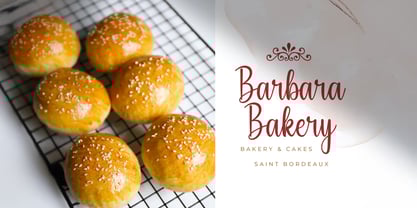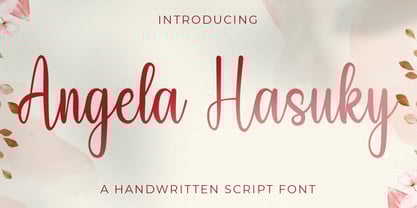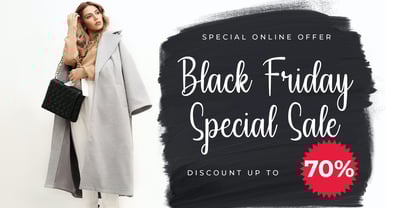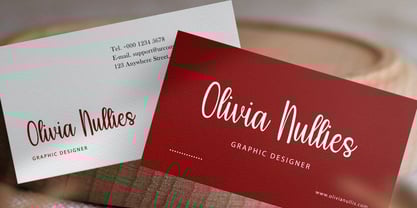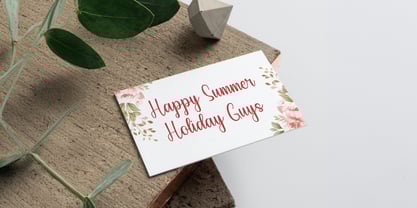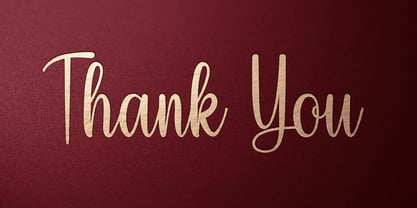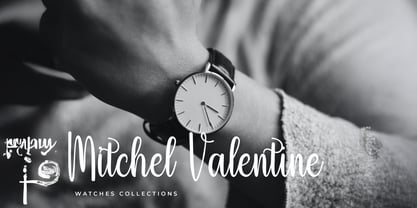
Angela Hasuky
by Stringlabs Creative Studio
The Angela Hasuky Font Family was designed by Virgiawan Listanto and published by Stringlabs Creative Studio. Angela Hasuky contains 1 styles.
Angela Hasuky is a beautifully crafted handwritten font that blends elegance with a relaxed, personal charm. Its smooth strokes and graceful curves bring a natural flow, perfect for adding a heartfelt and sophisticated touch to your design projects.